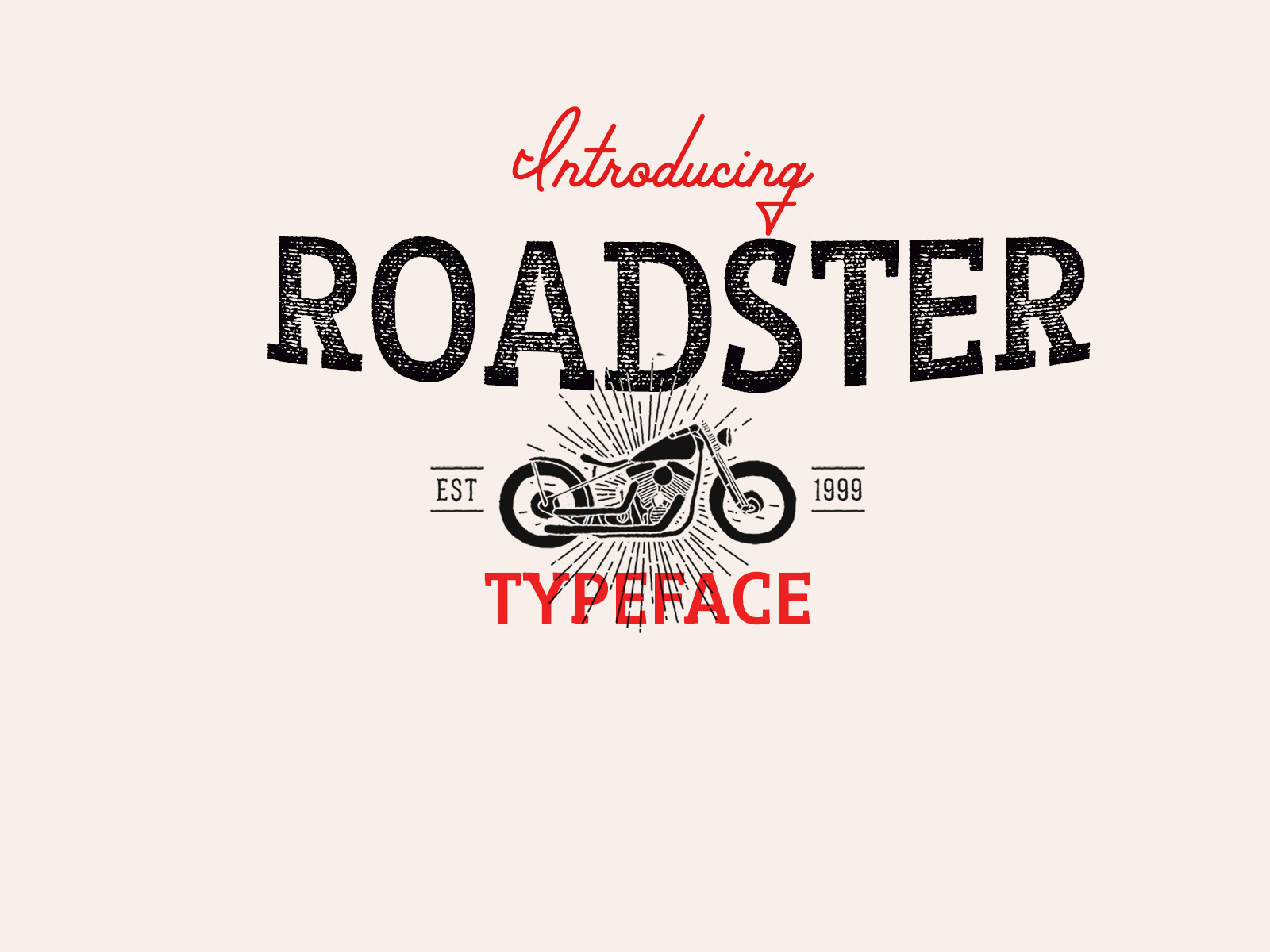
Roadster Typeface
INTRODUCING ROADSTER A Typeface family inspired by motorcycles and bike races. Roadster comes in 4 styles
- Textured
- Textured Heavy
- Emboss
Mix and Match them and create unique designs.You can use Roadster for logos, posters, vintage illustrations, mockups and whatever your imagination holds.A great typeface family to add to your design arsenal.